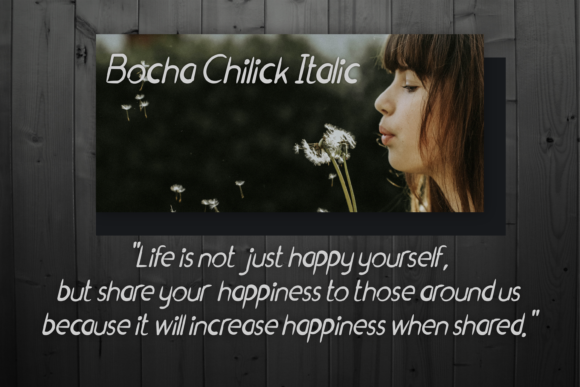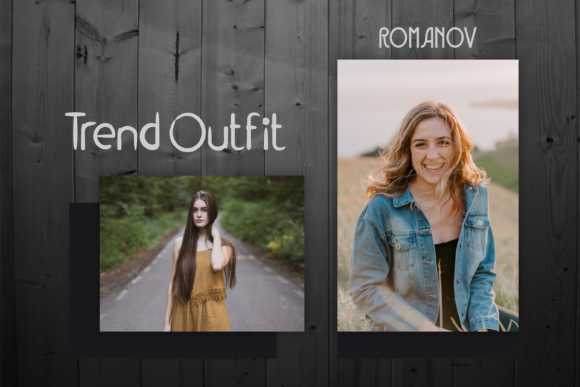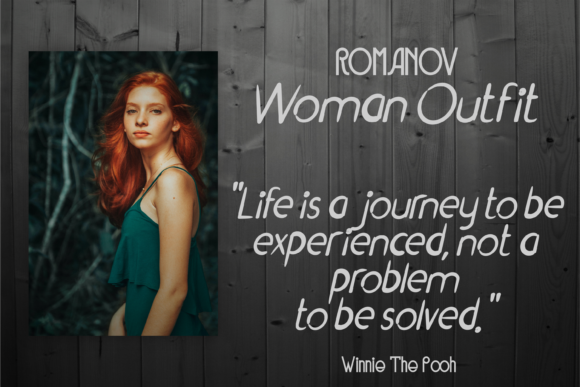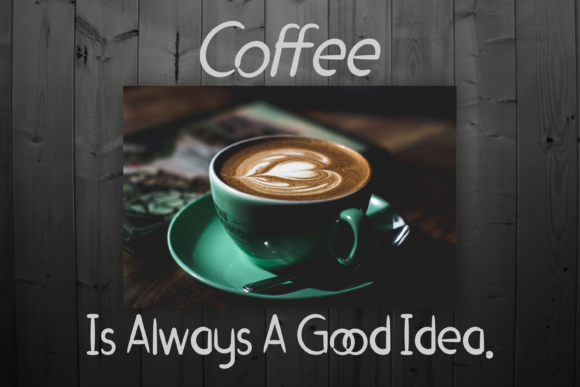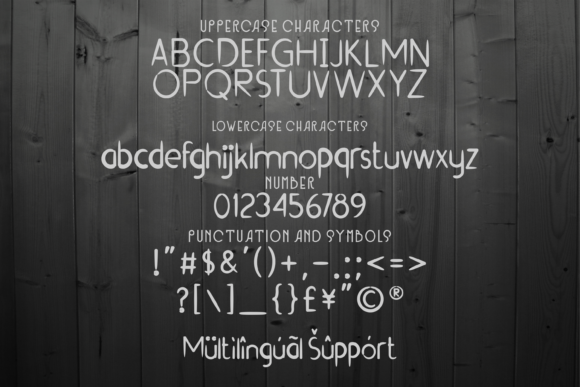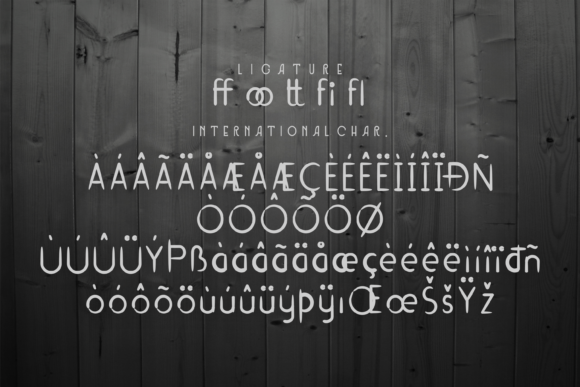
I still remember the frustration of working on a project, hours poured into the design, and then hitting a roadblock – finding the right font. It was as if my creativity had come to a screeching halt. My client wanted something modern, clean, and elegant, but I just couldn’t seem to find the perfect match. That’s when I stumbled upon **Bocha Chilick Font**, a minimal and neat sans serif font that has since become a staple in my design toolkit.
An Honest Review of Bocha Chilick Font
So, what makes Bocha Chilick Font so special? Let’s dive into the good stuff and, of course, a few quirks I’ve noticed.
- ✨ Versatility: Bocha Chilick Font can easily be matched to an incredibly large set of projects. Whether you’re working on a logo, a brochure, or a website, this font adapts seamlessly.
- ✅ Readability: The clean lines and sans serif design make it incredibly easy to read, even at smaller font sizes.
- 💡 Innovative Style: Bocha Chilick Font brings a fresh, modern aesthetic to the table, making your designs stand out from the crowd.
While Bocha Chilick Font is incredibly versatile, there are a few things to keep in mind:
- 🤔 Limited Extras: Don’t expect a vast array of extra glyphs or extensive language support. Bocha Chilick Font keeps things simple and focused.
- ⚠️ Overuse: As with any font, using Bocha Chilick Font across an entire website or project without variation can lead to a monotonous look. Mix it up with other fonts or stylistic alternates to keep things engaging.
The Designer Inspiration Behind Bocha Chilick Font
While the origins of Bocha Chilick Font might not be well-documented, it’s easy to imagine a designer frustrated with the lack of simplicity and elegance in modern fonts. They set out to create a font that was not only beautiful but also incredibly versatile. The result is a font that feels both contemporary and timeless.
A: Bocha Chilick Font is incredibly versatile and can be used for a wide range of projects, from digital interfaces and websites to print materials like brochures and posters.
A: Bocha Chilick Font is designed with a focus on English and similar languages. For extensive multilingual support, you may need to explore additional fonts or font packages.
A: Bocha Chilick Font stands out for its minimalistic design and clean lines, making it a great choice for projects where readability and elegance are key. It compares favorably to other popular sans serif fonts like Montserrat and Lato, offering a unique aesthetic that’s both modern and versatile.